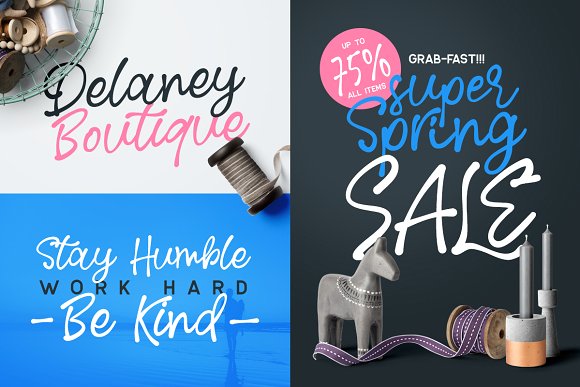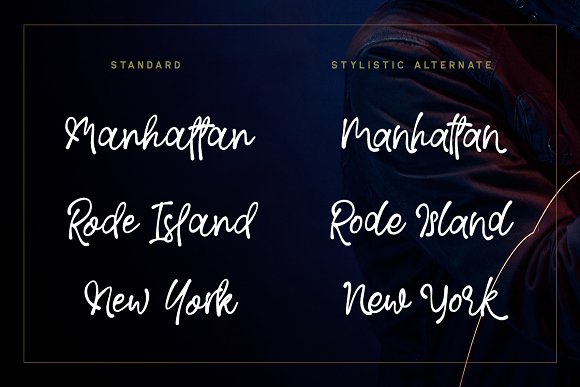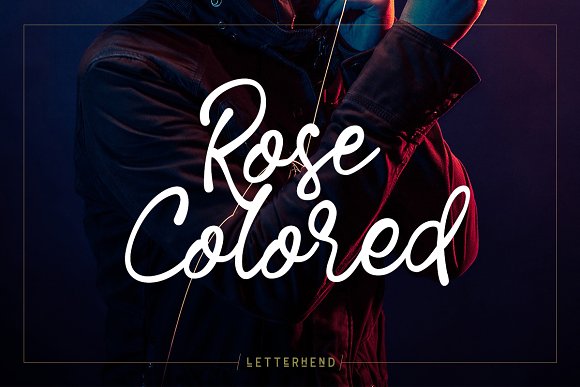
Rose Colored Script
Rose Colored Script Font
Rose Colored is a Handwriting Script which is beautifully crafted with feminine touch. This font is perfect as a logo, quotes, apparel design, wedding invitation, and any design needs especially for a girly / feminine theme. You can play with the ligatures, stylistic alternate, swash, etc to create your own customized lettering. This font is also support multi language